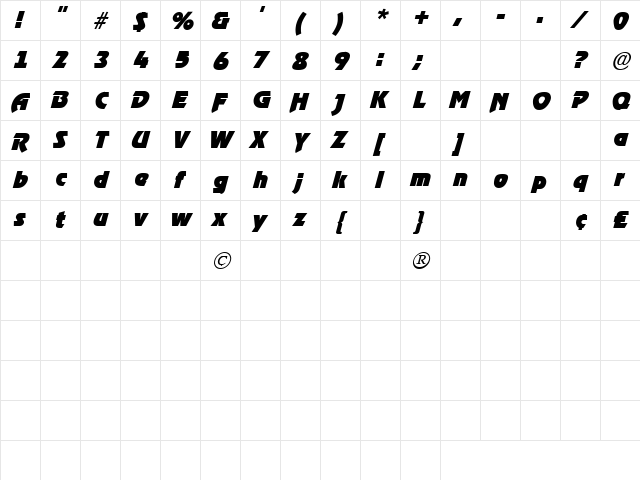
Blue Jeans 3 Italic
Design Context for Blue Jeans 3 Typeface
Blue Jeans 3 is a composed and adaptable typeface that performs quietly and consistently across a wide range of design contexts. The slanted form adds forward momentum and visual energy.
Pro Tip: Try Blue Jeans 3 for annotation and caption copy alongside an upright companion — the contrast in angle creates a dynamic but ordered typographic system.